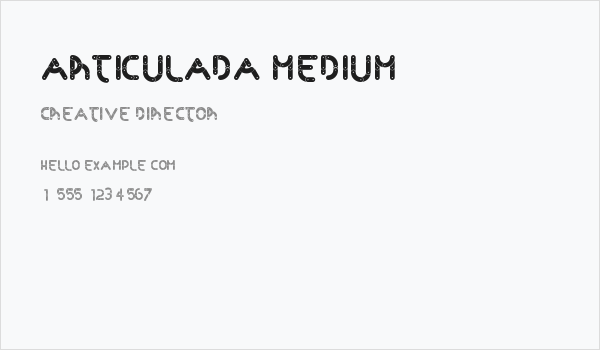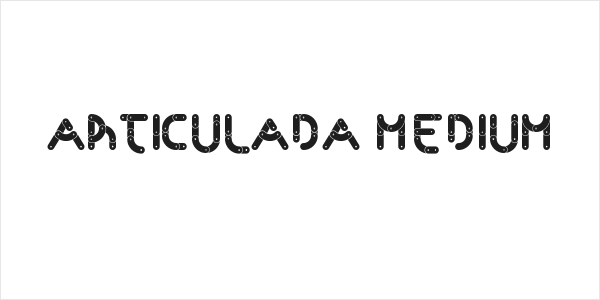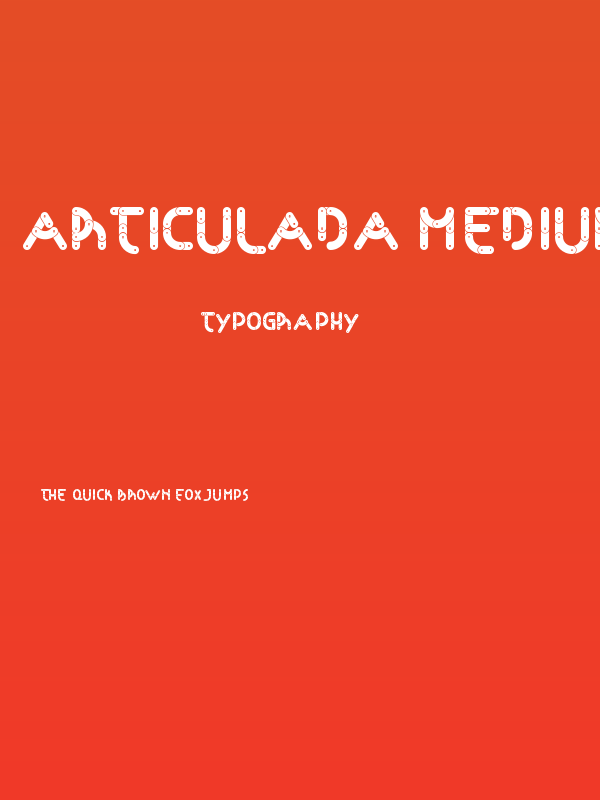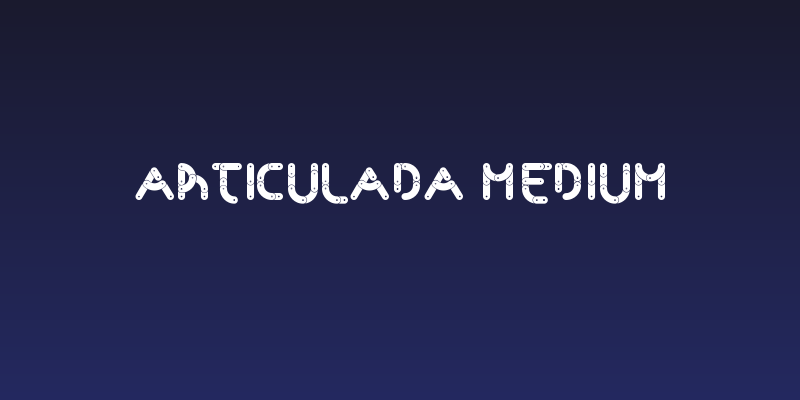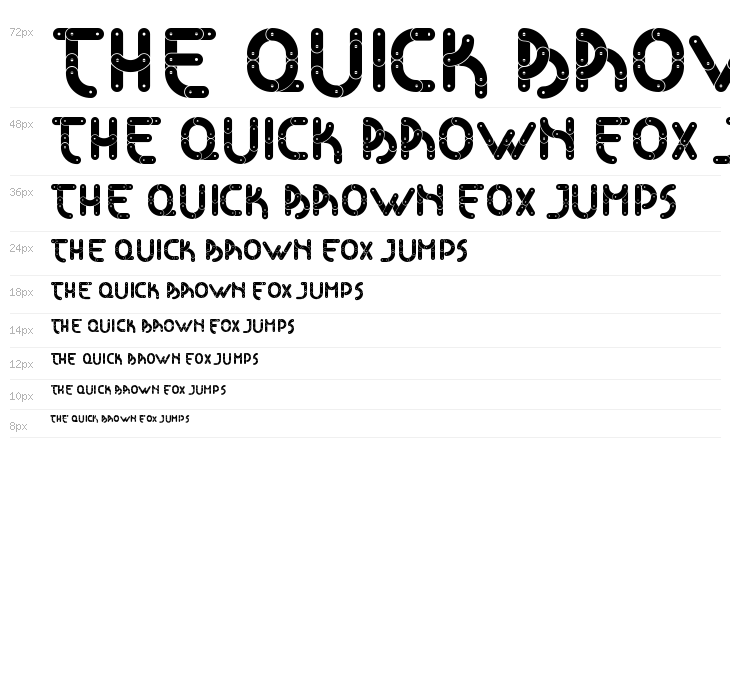
Articulada Medium Font
Articulada Medium Description
This font features a unique, mechanical design with elements that resemble interconnected parts or joints, giving it an industrial and futuristic appearance. The characters are bold and rounded, with consistent thickness throughout, creating a uniform and cohesive look. The design incorporates small circular elements at the joints, adding to its mechanical aesthetic. This font is highly decorative and stands out due to its distinctive style, making it ideal for projects that require a modern and edgy feel.
| Overall Style | Futuristic, Industrial |
| Proposed Projects | Ideal for technology branding, sci-fi posters, video game titles, and industrial-themed designs. |